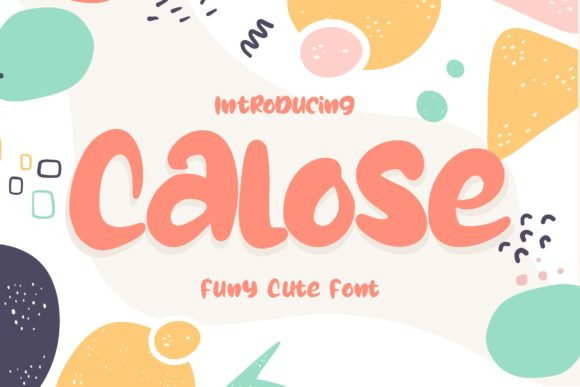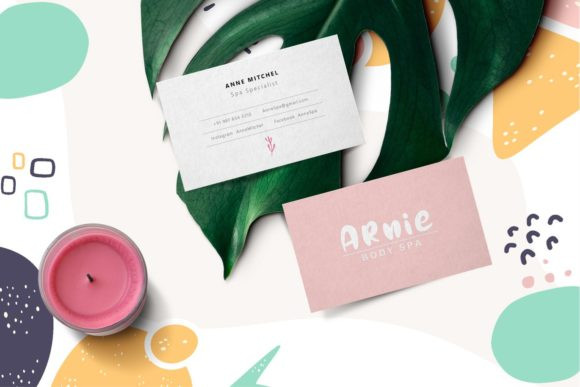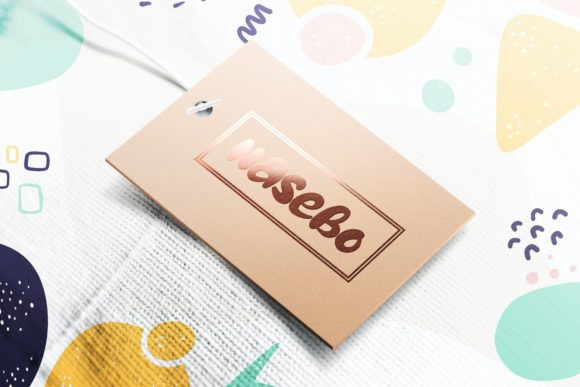
Calose Font
Calose is a cute and quirky display font. Its friendly feel makes this font incredibly versatile, fitting a wide range of contexts. Add it to your creative ideas and notice how it makes them stand out!